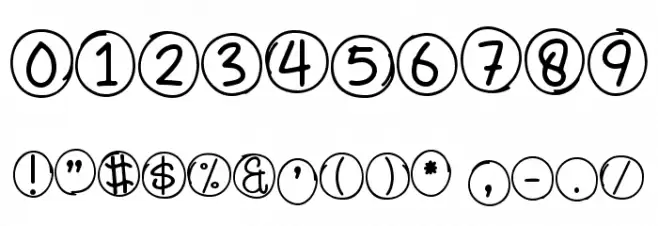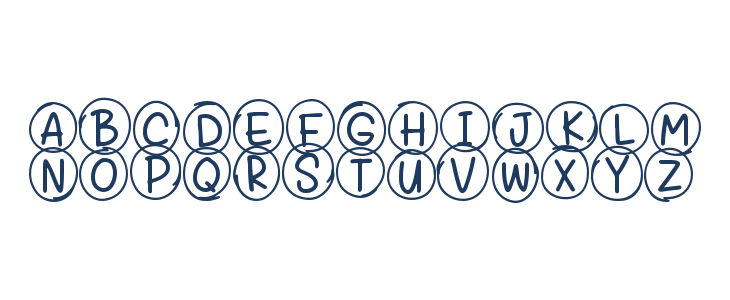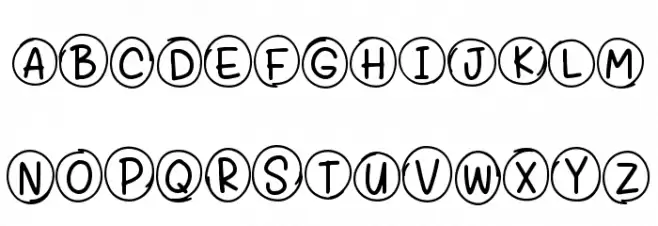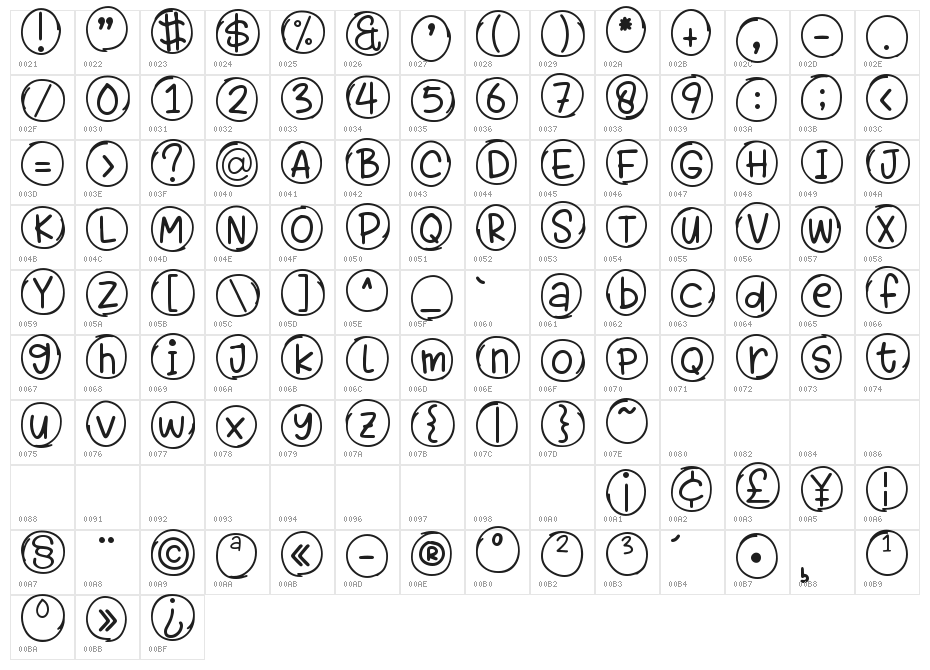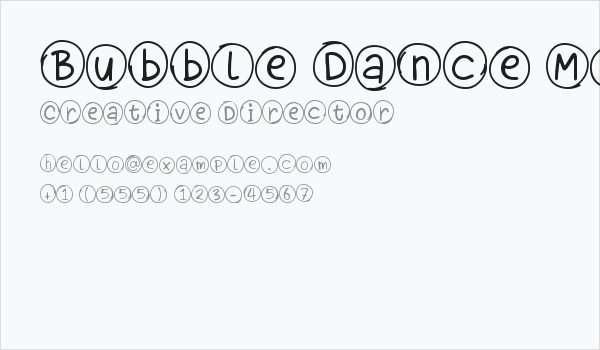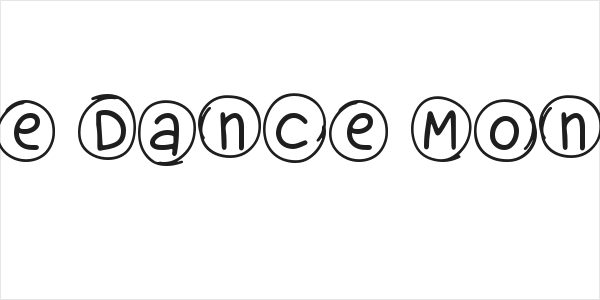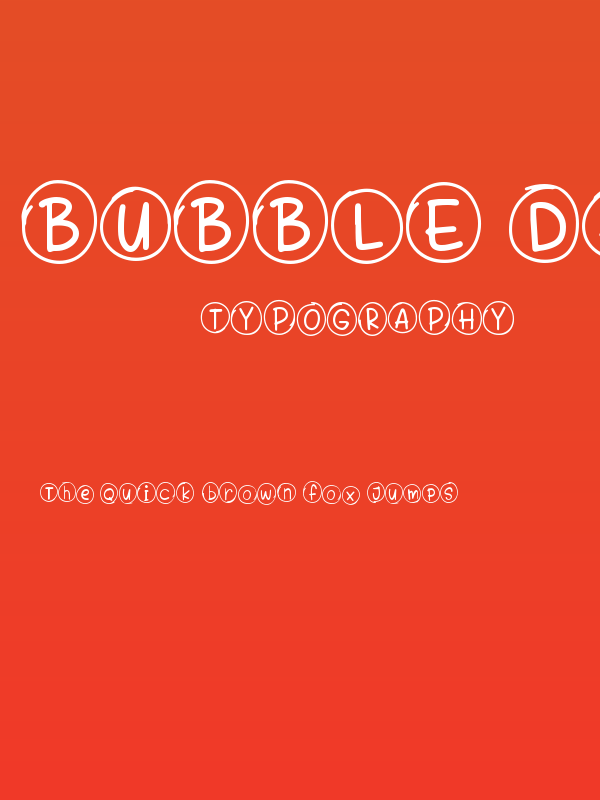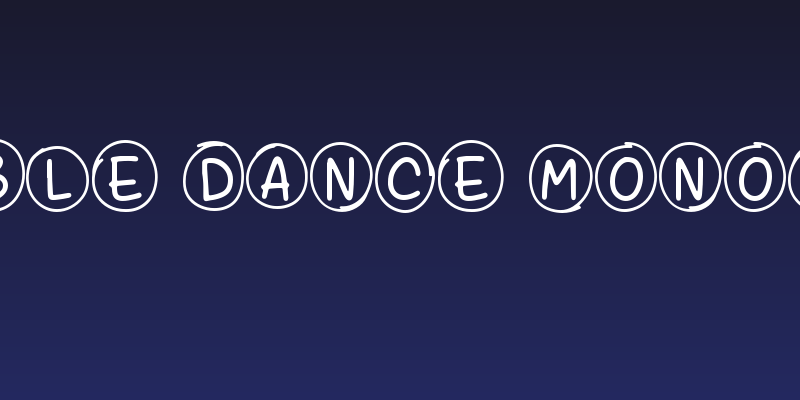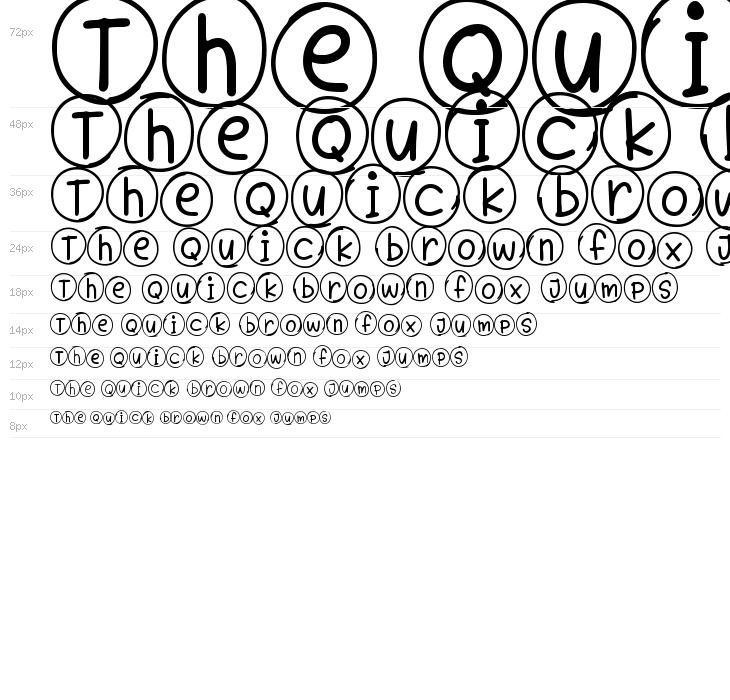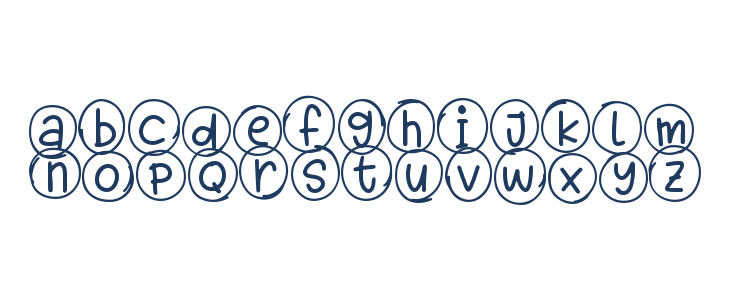
Bubble Dance Monogram Font
Bubble Dance Monogram Description
Playful, hand-drawn sans-serif letters and symbols each enclosed in a loosely sketched circle, giving a whimsical and informal appearance.
| Overall Style | Playful, Decorative, Whimsical |
| Use Case | Logos, Headlines, Posters, Invitations |
| Proposed Projects | Children's books, party invitations, playful branding, educational materials, posters. |